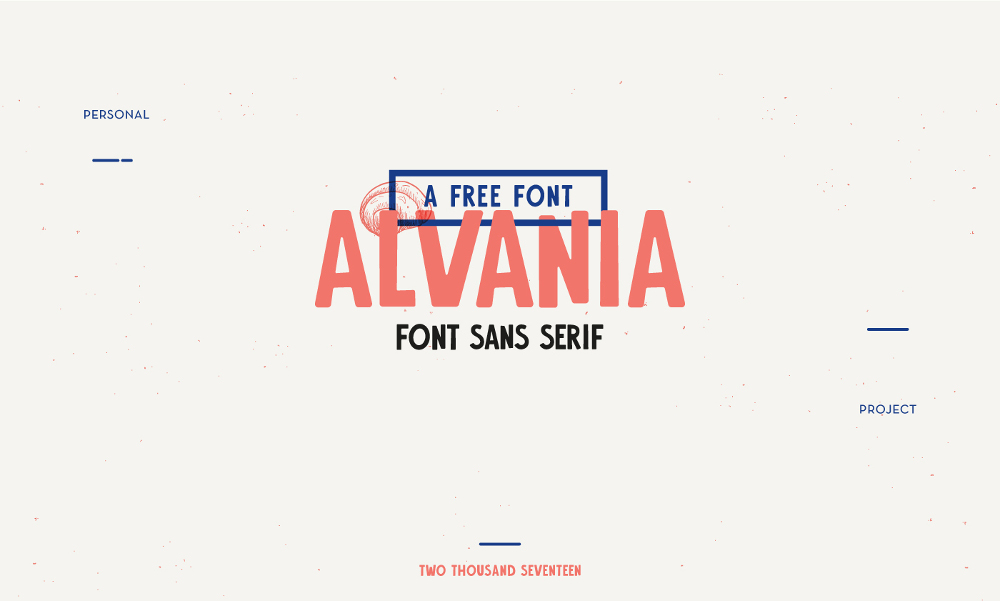
Alvania – Free Typeface
Alvania is a simple friendly uppercase typeface and includes characters, numerals, glyphs and signs. Suits various design needs specially posters, packages, brand development and more.